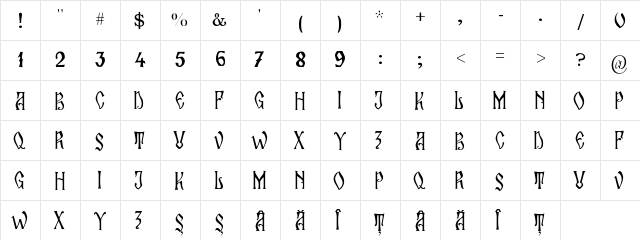
Zamolxis II Regular
Design Context for Zamolxis II Typeface
Zamolxis II is a composed and adaptable typeface that performs quietly and consistently across a wide range of design contexts.